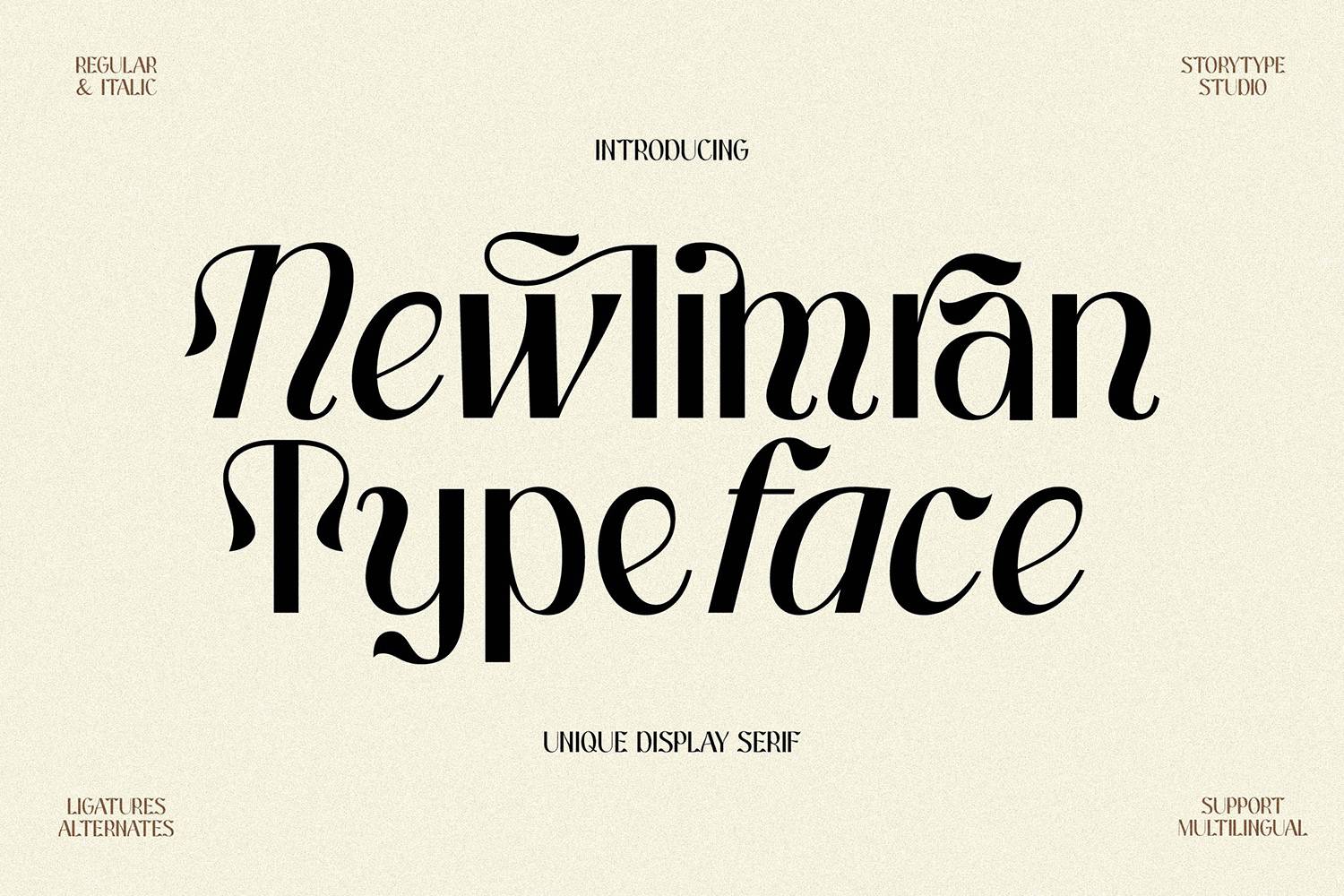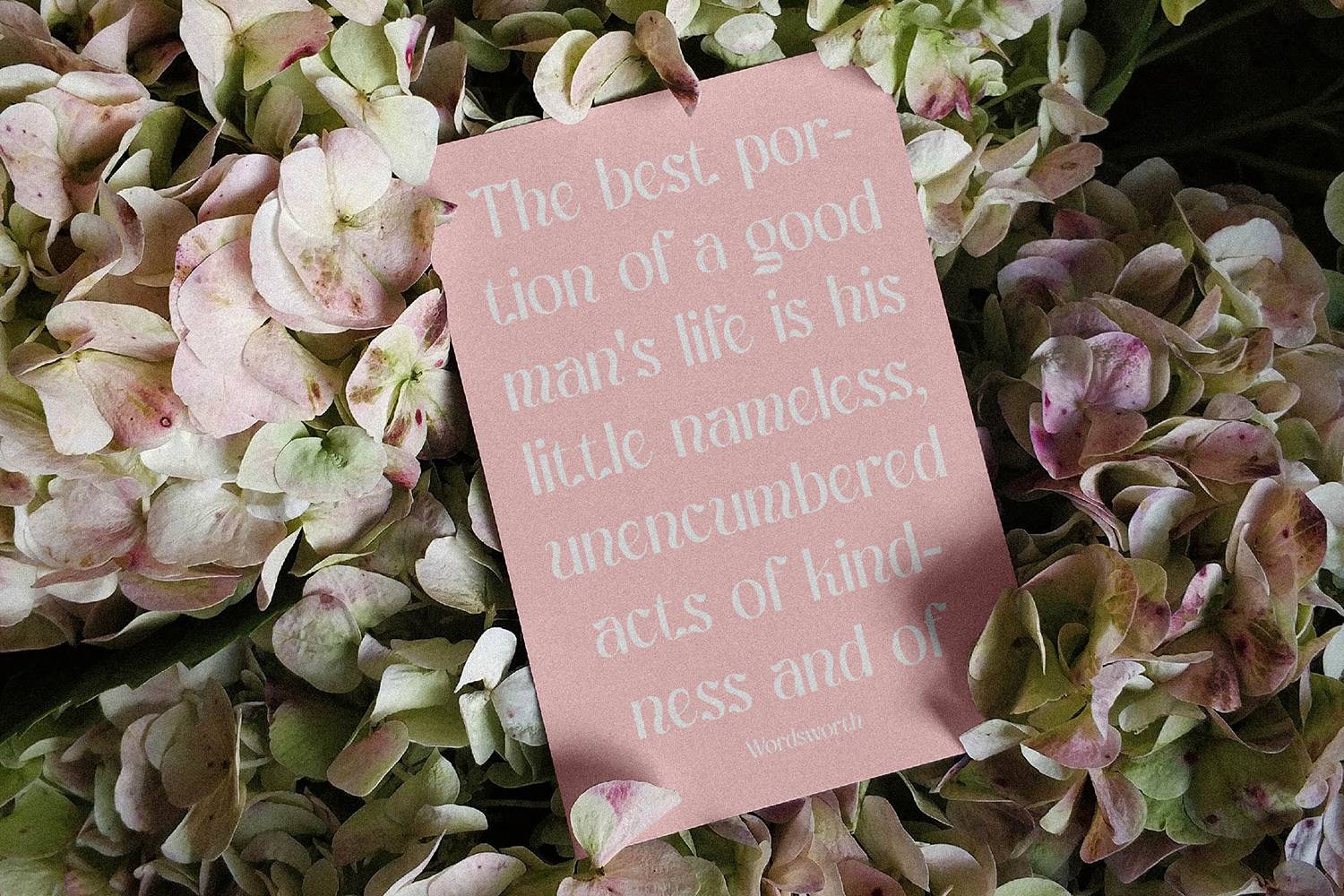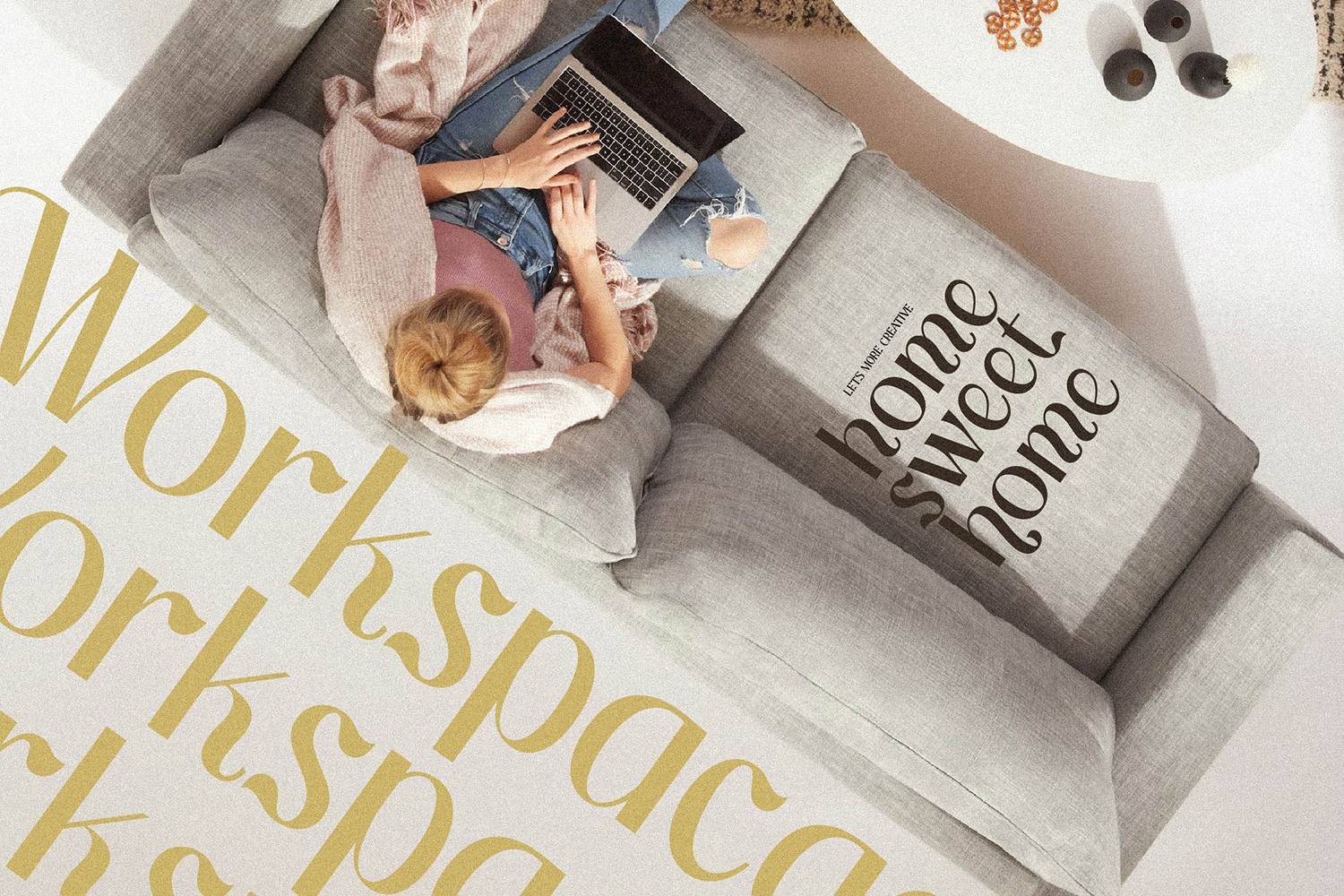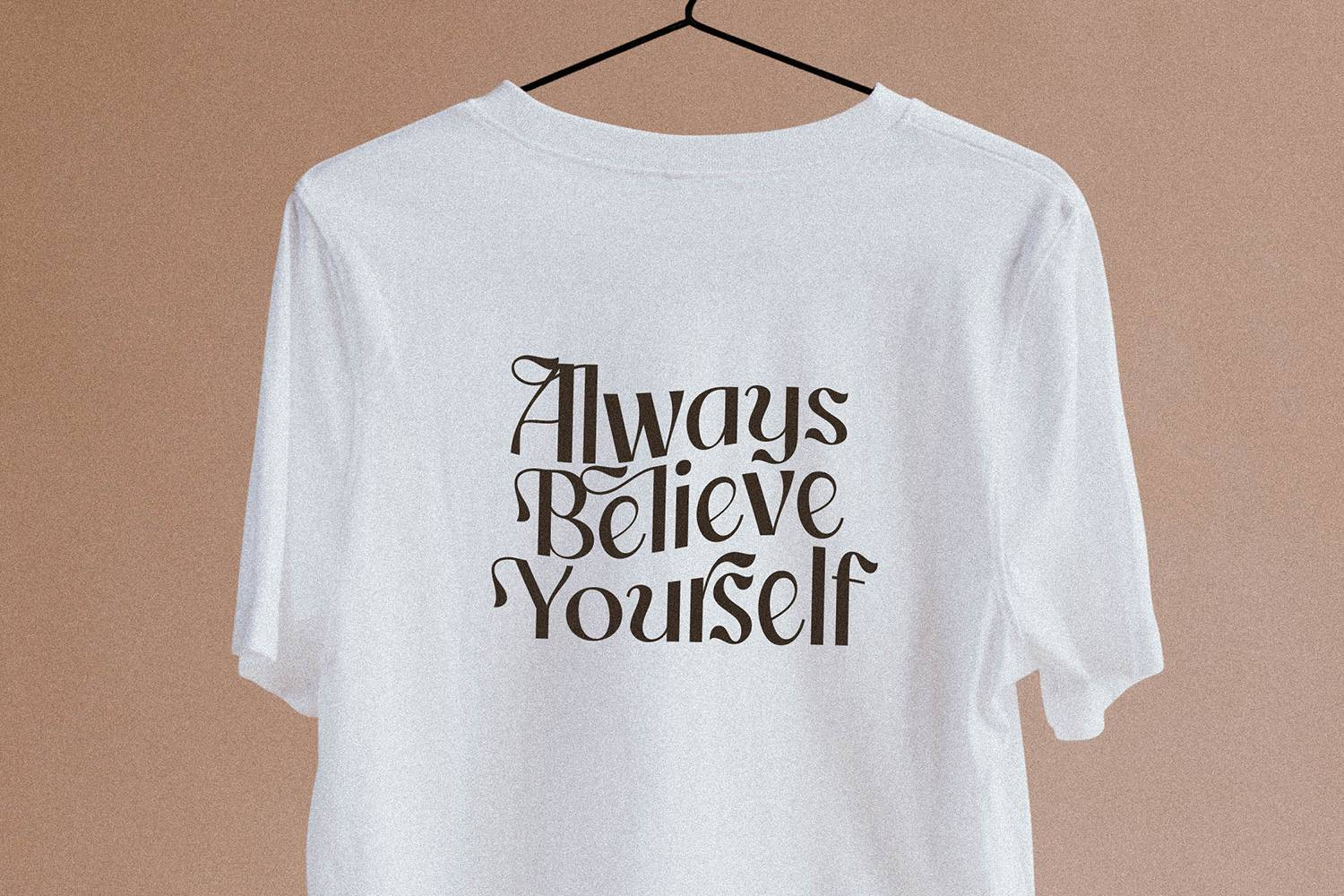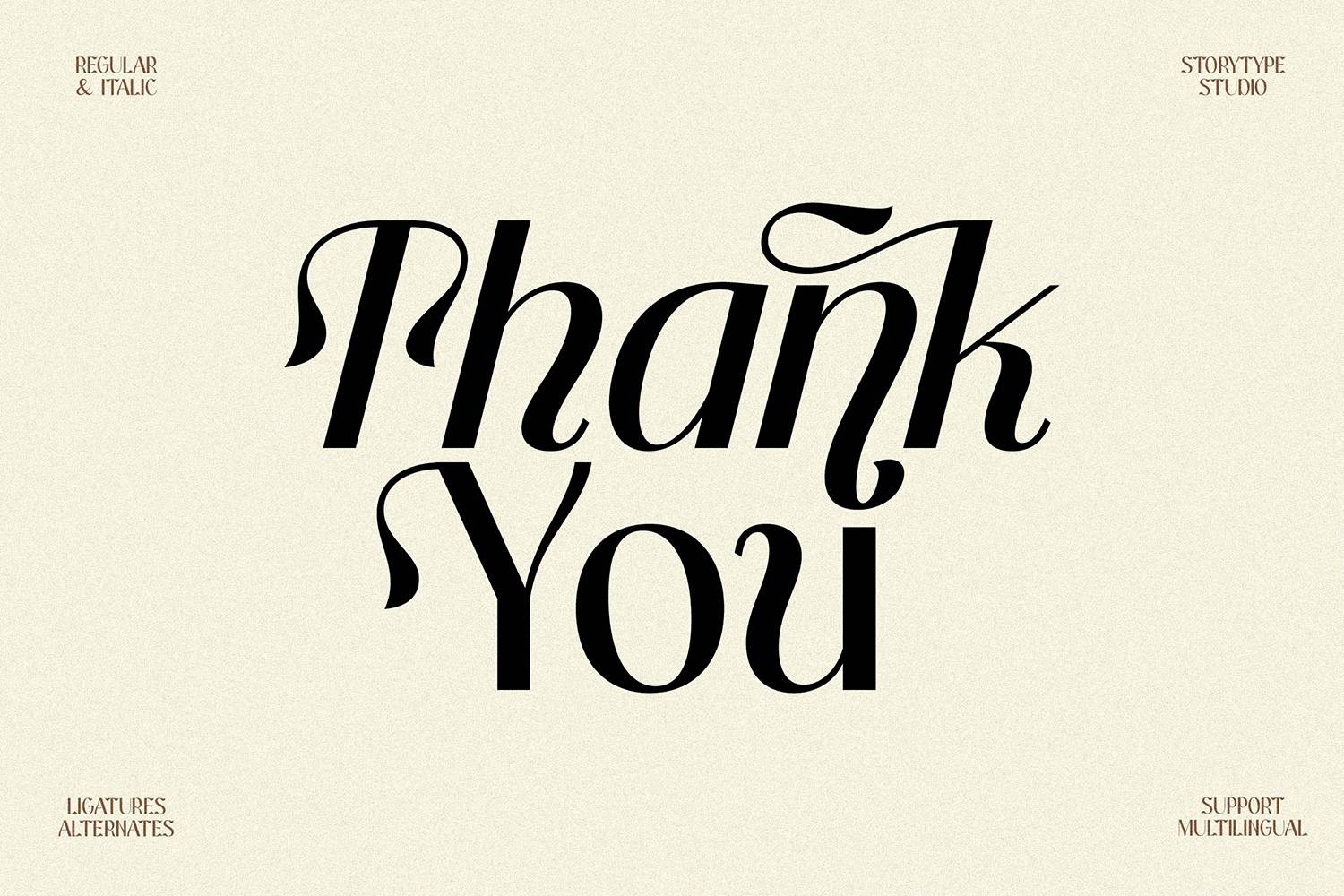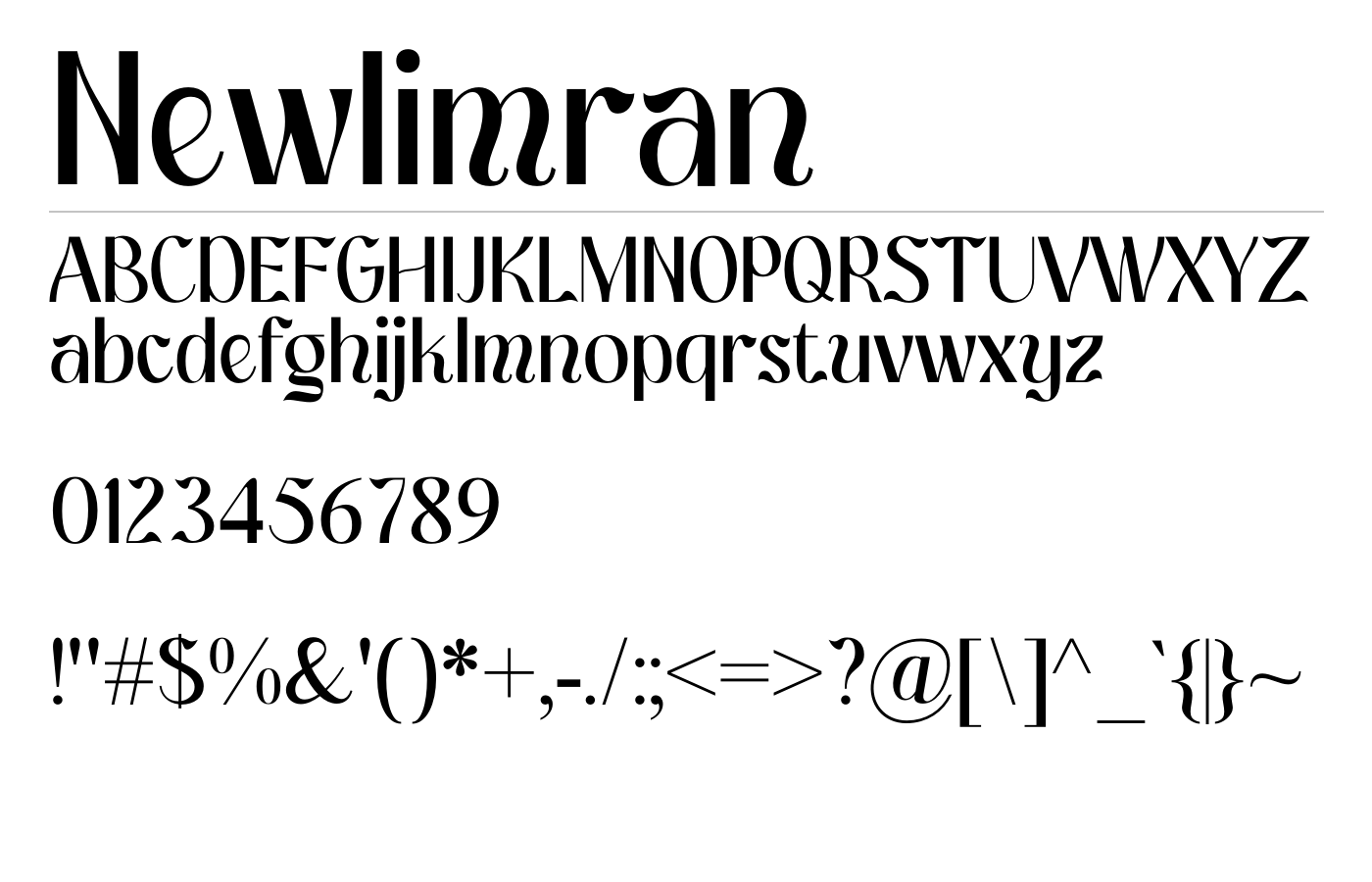
Newlimran is a stylish serif font with a modern twist, featuring high contrast between thick and thin strokes and elegant, slightly curved serifs. It offers a refined, artistic feel with unique letterforms that combine sharp edges and smooth curves, making it perfect for sophisticated branding, editorial headlines, and creative design projects seeking a distinctive, elegant look. This font works well where a touch of luxury and individuality is desired, especially in logos and eye-catching display text.
Newlimran Font
About Newlimran Font